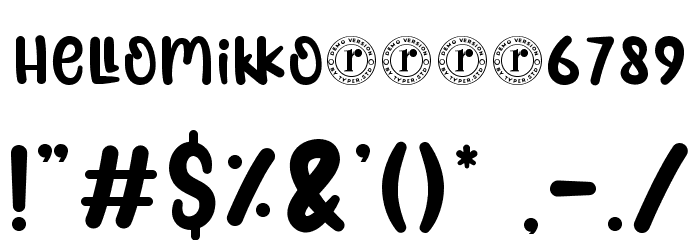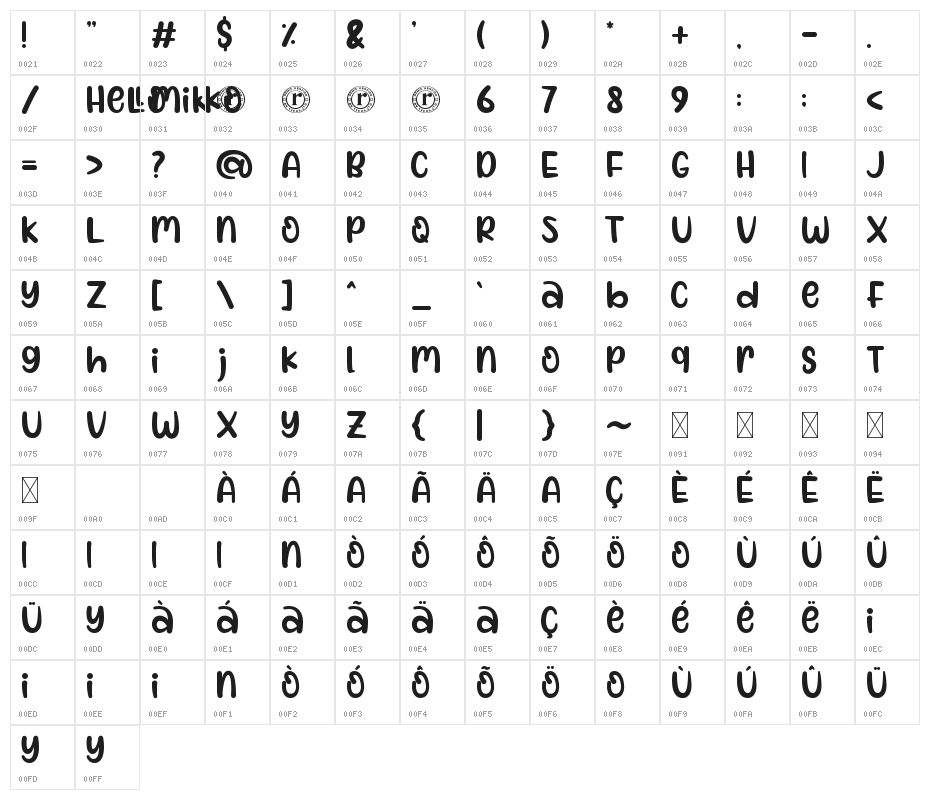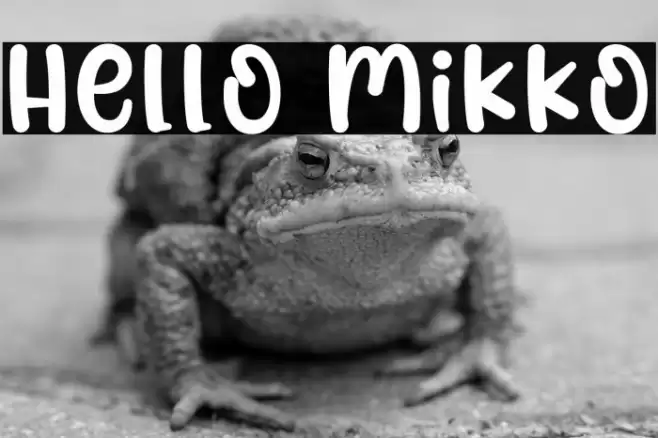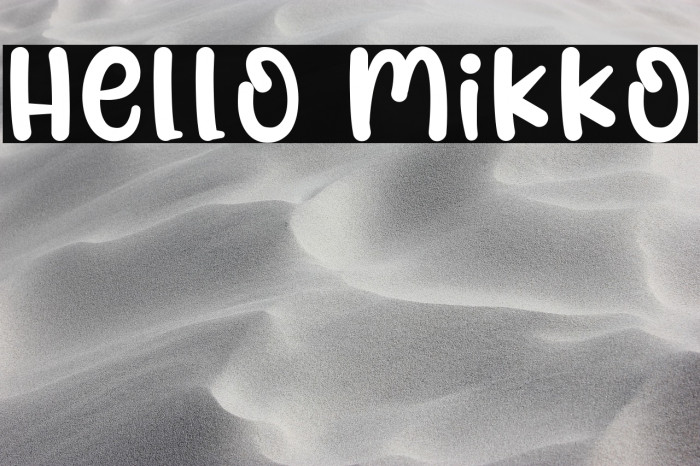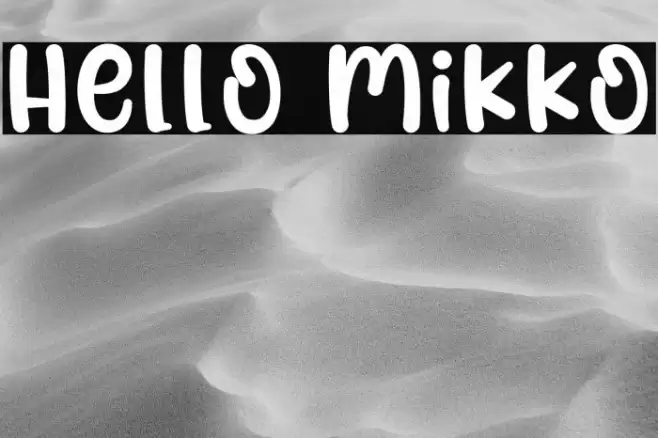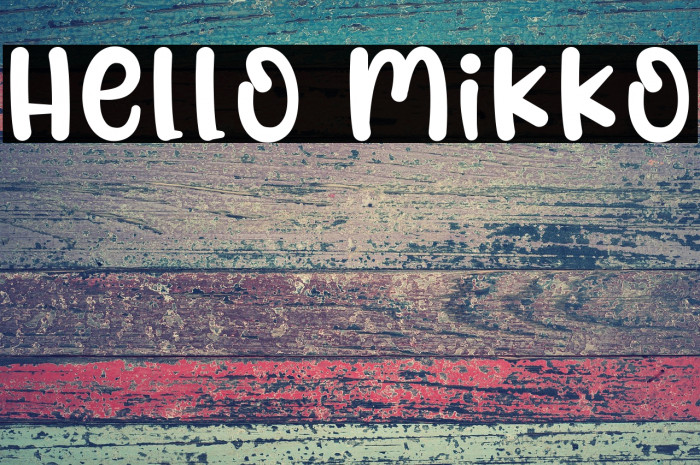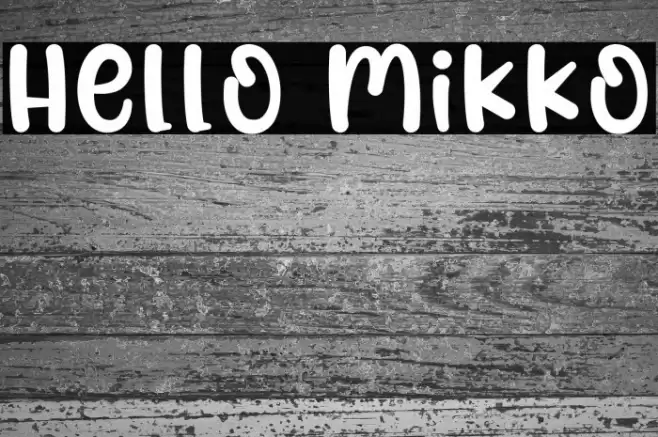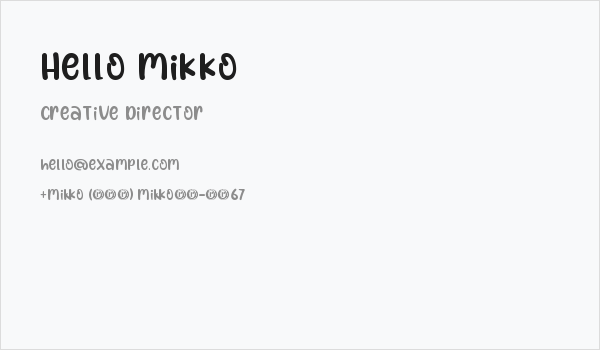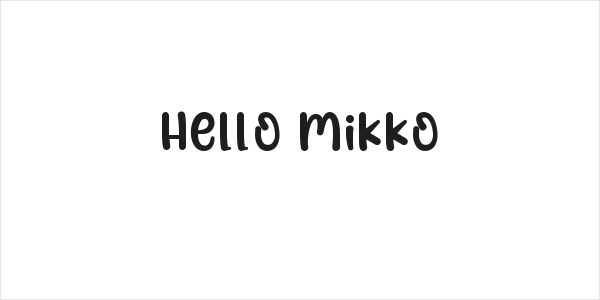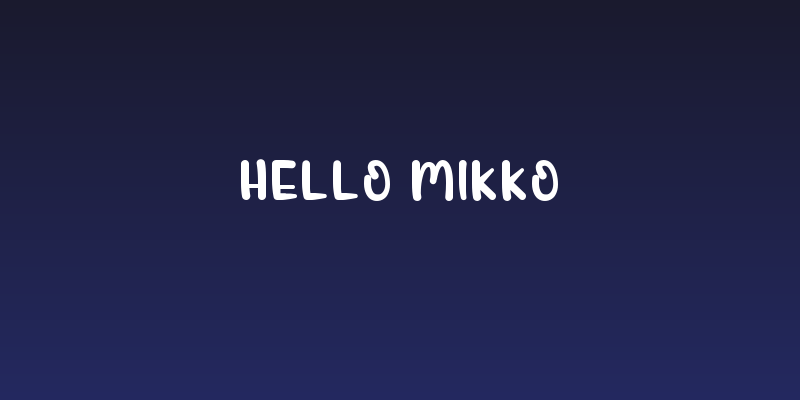
Hello Mikko Font
Hello Mikko Description
This playful and whimsical font features rounded, bold characters with a hand-drawn aesthetic. The letters have a consistent stroke width, giving them a uniform appearance while maintaining a casual and friendly vibe. The uppercase and lowercase letters are distinct, with the lowercase letters having a slightly more playful curve. The numbers and special characters are designed to match the overall style, making them cohesive with the alphabet. This font is perfect for projects that require a fun and approachable look.
| Use Case | Headlines, Logos, Social media graphics |
| Proposed Projects | Ideal for children's books, greeting cards, playful branding, and social media graphics. |